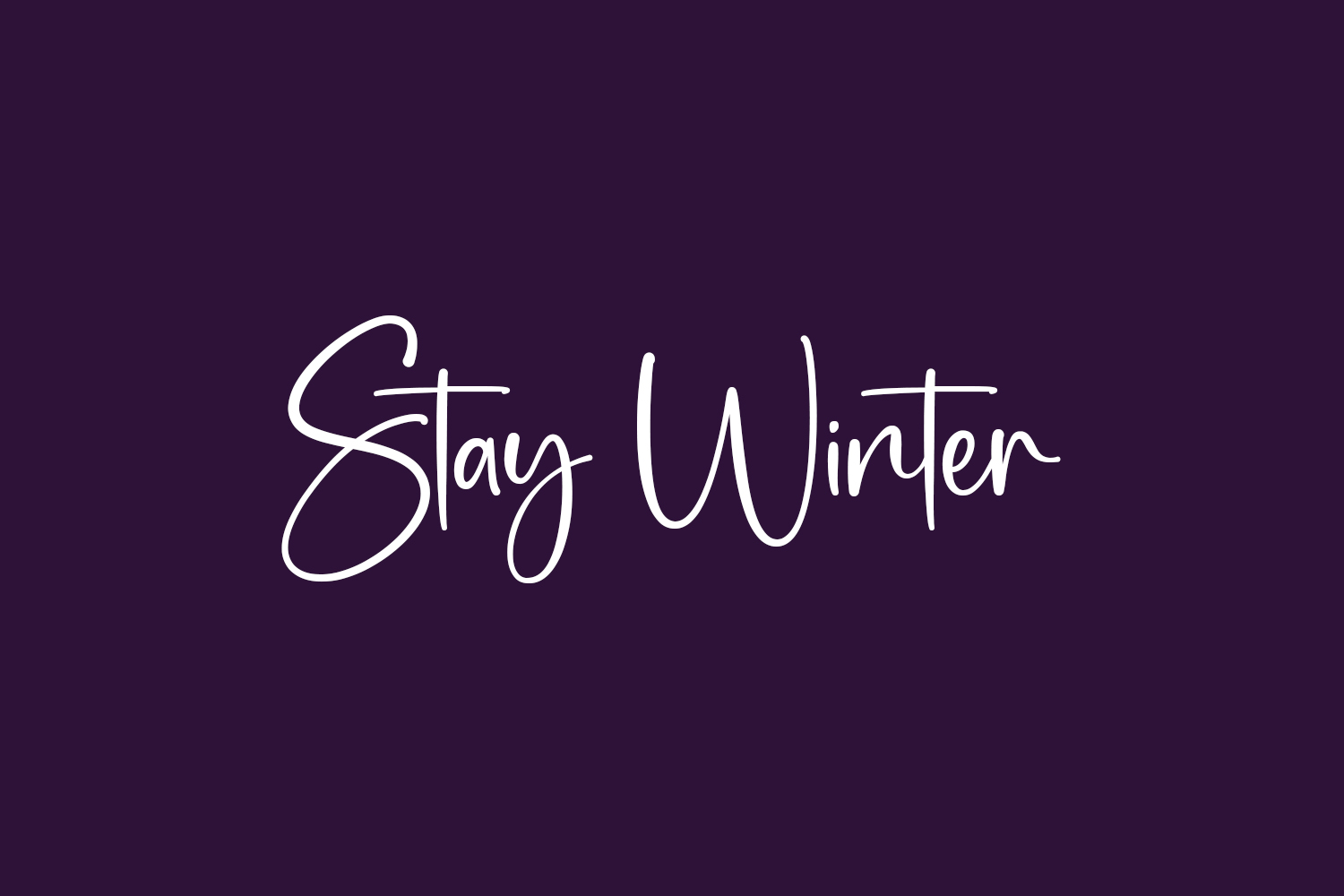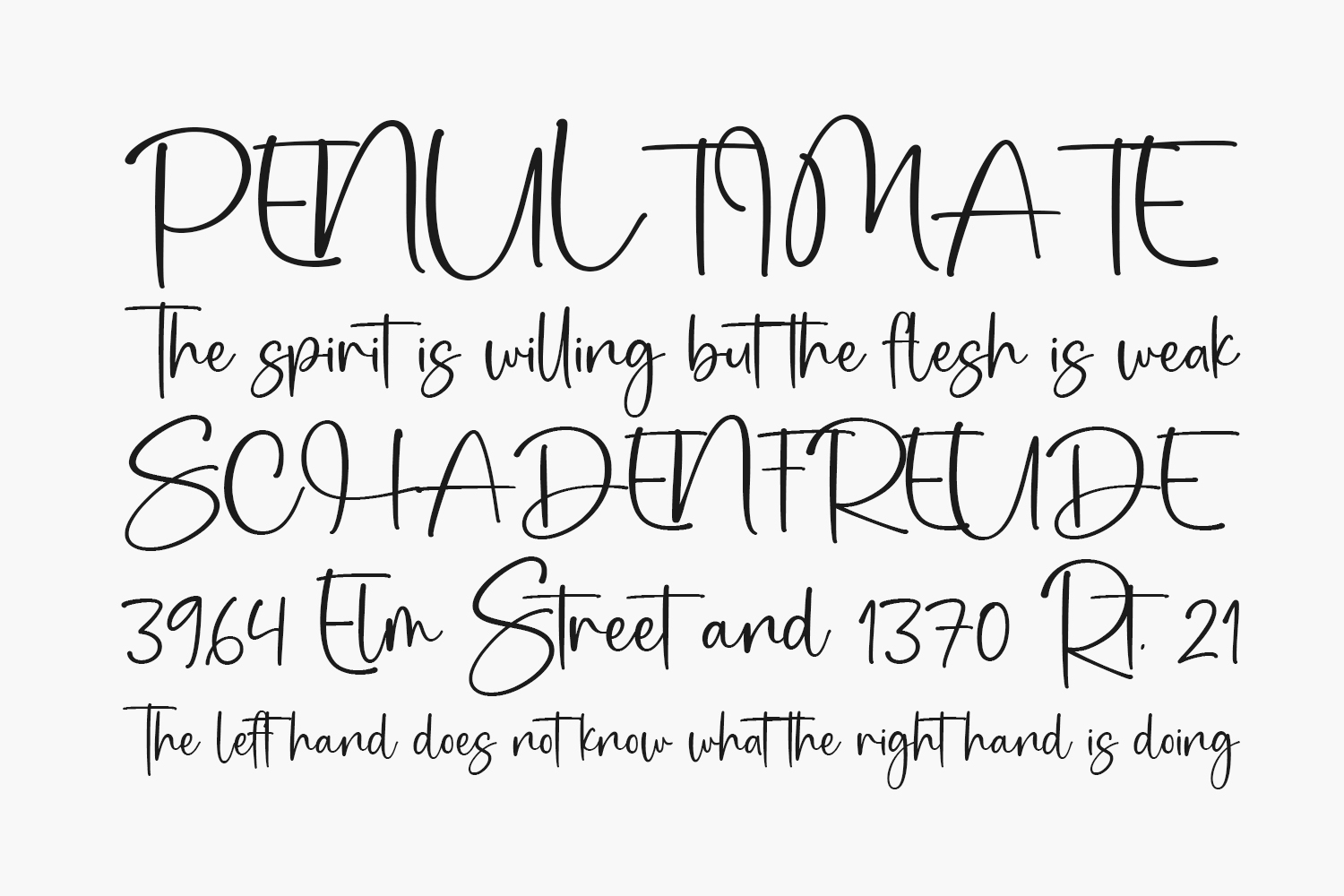
Stay Winter Free Font script that evokes feelings of warmth and coziness. With its delicate, cursive lines and gentle curves, this font is like a ray of sunshine on a cold winter day. It brings a sense of comfort and serenity, making it perfect for projects that require a touch of elegance and charm. Whether you’re creating a heartfelt letter or designing a beautiful invitation, Stay Winter Free Font will add a touch of beauty and emotion to your words.
Designed by Ramli Setiadi